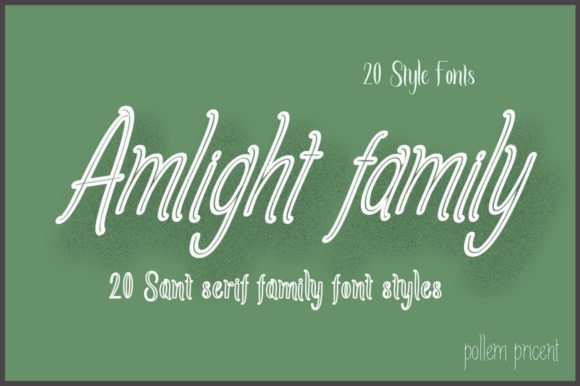
Discover the Perfect Blend of Whimsy and Structure: Amlight Family Font
As designers, we’re always on the lookout for that perfect font to bring our creative visions to life. Remember that moment when you stumbled upon a font that just clicked, and everything seemed to fall into place? For me, that moment came when I discovered the Amlight Family Font – a lovely handwritten font that exudes a sense of warmth and approachability.
Amlight Family Font is designed to be both beautiful and functional, making it an ideal choice for official media such as banners, magazines, newspapers, books, and more. Its firm structure and simple character ensure that the reader’s attention is captured, while its comfortable design makes it a pleasure to read.
- Font Family: Amlight Family is a multistyle font family consisting of 12 font styles, each with its unique characteristics.
- Unique Characteristics: The Amlight Family font features a unique blend of modern and traditional design elements, making it an excellent choice for creating visually appealing and professional-looking documents, presentations, and websites.
Amlight Family Font Review
I’ve had the chance to work with the Amlight Family Font, and I must say, it’s a mixed bag. Let’s start with the good stuff.
- ✨ Unique flair: The Amlight Family Font has a distinct, hand-crafted feel that sets it apart from other fonts. It’s perfect for designers looking to add a touch of personality to their projects.
- ✨ Wide range of weights: The font family includes a variety of weights, from light to bold, making it easy to find the perfect match for your design.
- ✨ Good legibility: The font is well-designed for readability, with clear lines and a consistent letterform structure.
However, there are some limitations to consider.
- ⚠️ Limited language support: The Amlight Family Font may not be suitable for projects that require support for languages other than Latin-based scripts.
- ⚠️ Not ideal for small text: Due to its hand-crafted nature, the font can be challenging to read in smaller sizes, which may limit its use in certain applications.
- ⚠️ Limited OpenType features: While the font includes some basic OpenType features, it may not offer the level of customization and advanced typography that some designers require.
Overall, the Amlight Family Font is a solid choice for designers who value unique, hand-crafted typography. While it may not be perfect, it’s a great option for projects where a personal touch is desired. With some careful consideration of its limitations, the Amlight Family Font can be a valuable addition to any designer’s toolkit.
For best results, use Amlight Family Font for titles, headings, and emphasis.
Use Amlight Family Font for headings, titles, and emphasis to create a cohesive look.
Use Amlight Family Font for headings, titles, and emphasis to create a professional look.
Amlight Family Font is ideal for:
- Creating a modern and sleek design aesthetic.
- Using for titles, headings, and emphasis in documents and presentations.
- Adding a touch of sophistication to your branding and marketing materials.